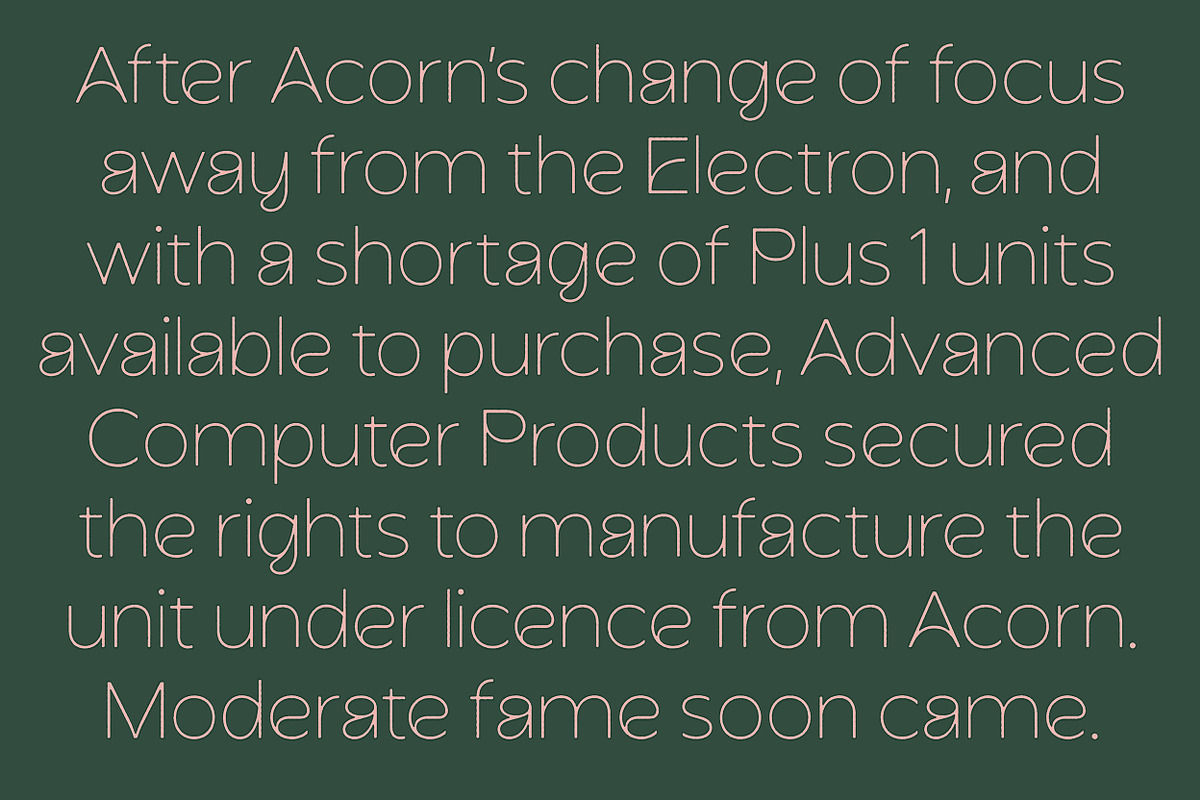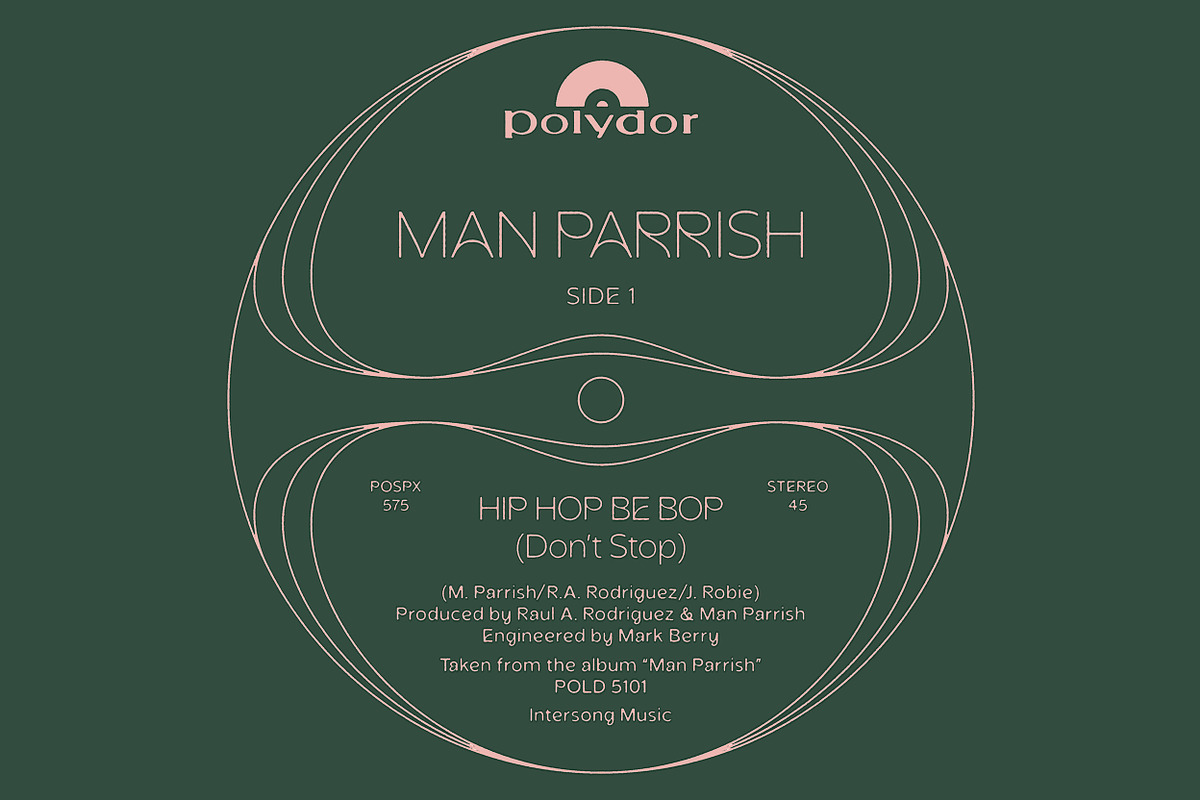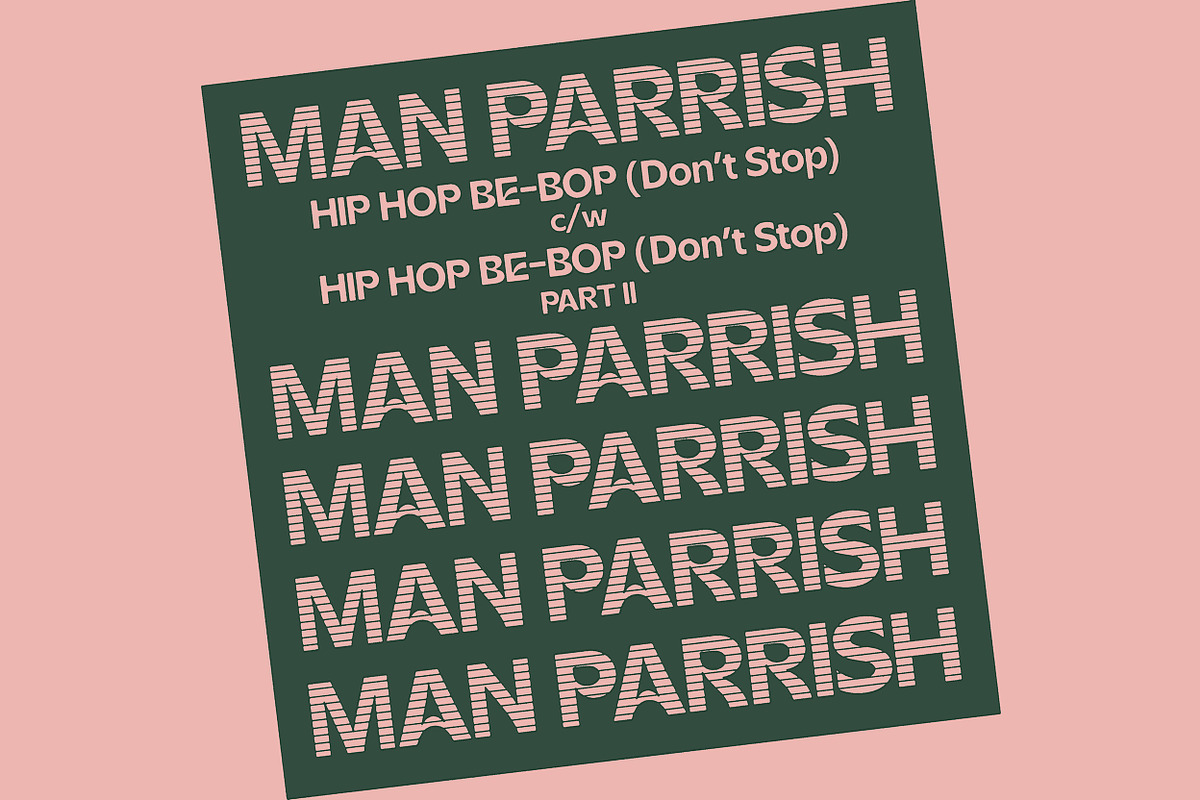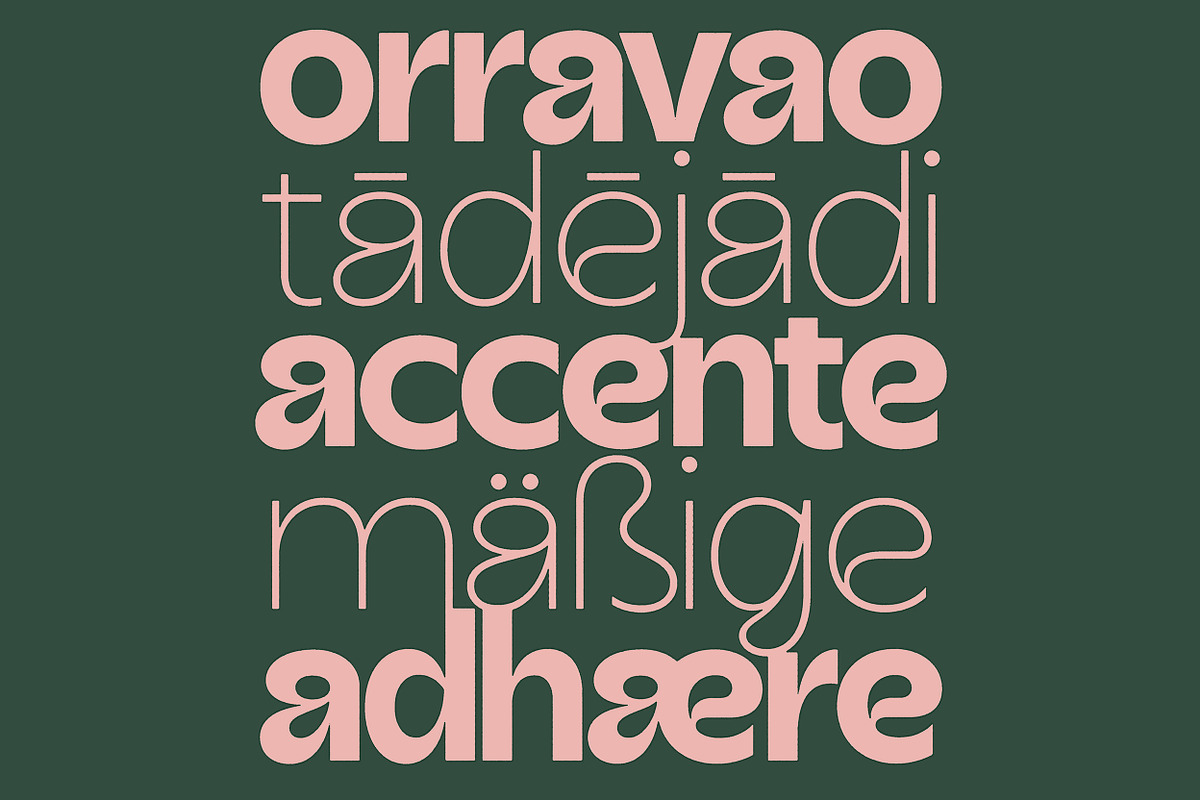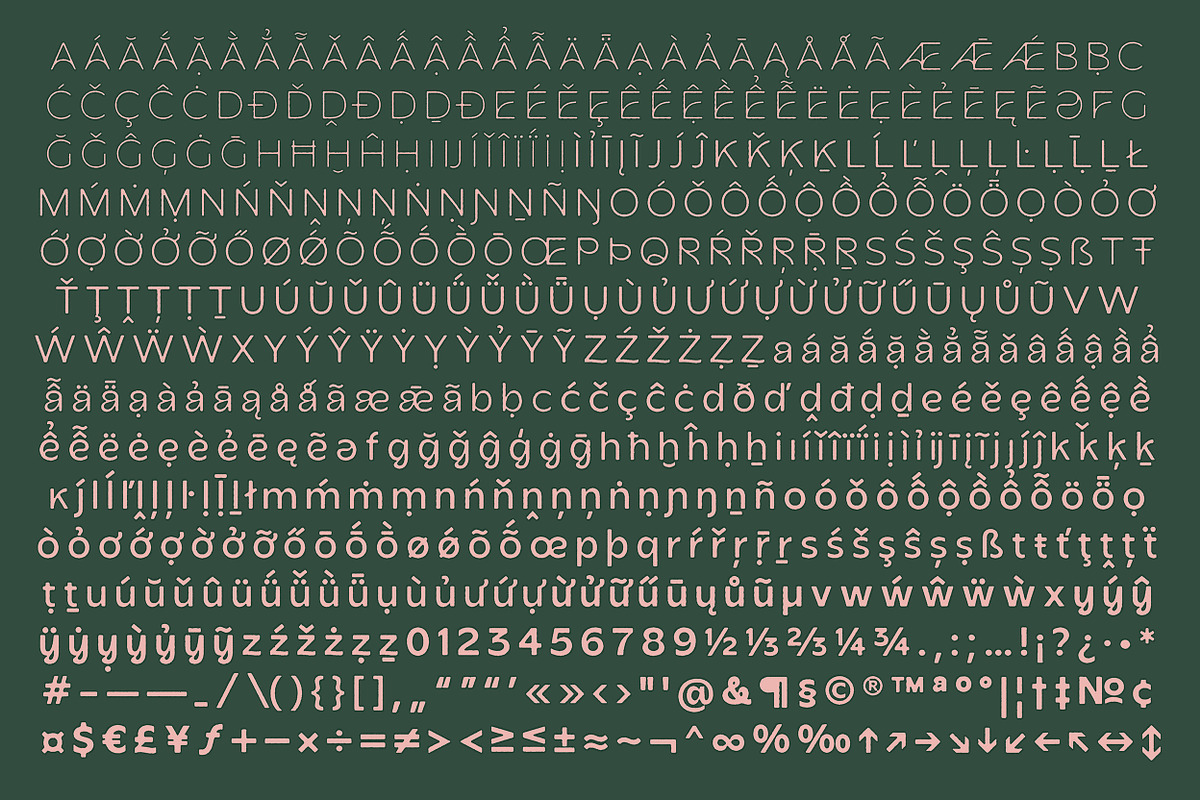
Acorn
Acorn is a display sans serif in seven weights. It's clean and modern, but with some organic touches for a unique typographic flow. Variable font included. Check out a sample PDF, here: https://www.dropbox.com/s/qz77ebu0szkjr1t/acorn_sample.pdf?dl=0